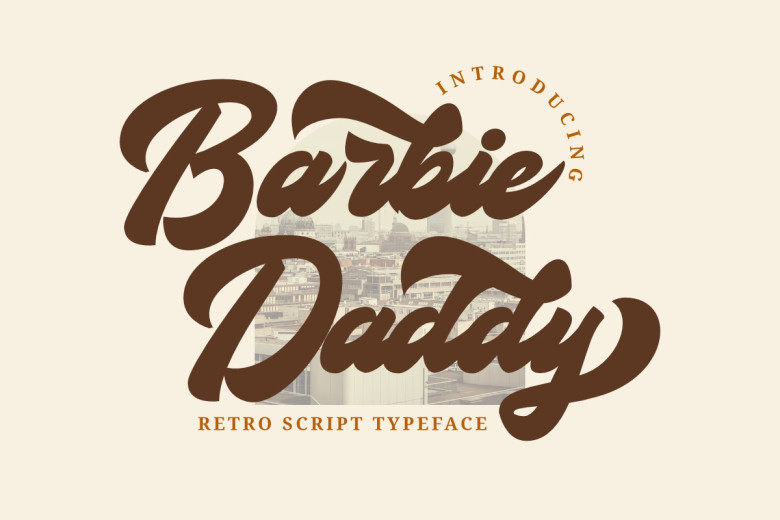
Barbie Daddy Font
Barbie Daddy features a retro style script font with bold characters inspired by retro feminine styles. Perfect for digital crafting purposes like making mugs and T-shirts; greeting cards; wedding invitations or wall hangings etc.
Barbie Daddy Retro Script Font